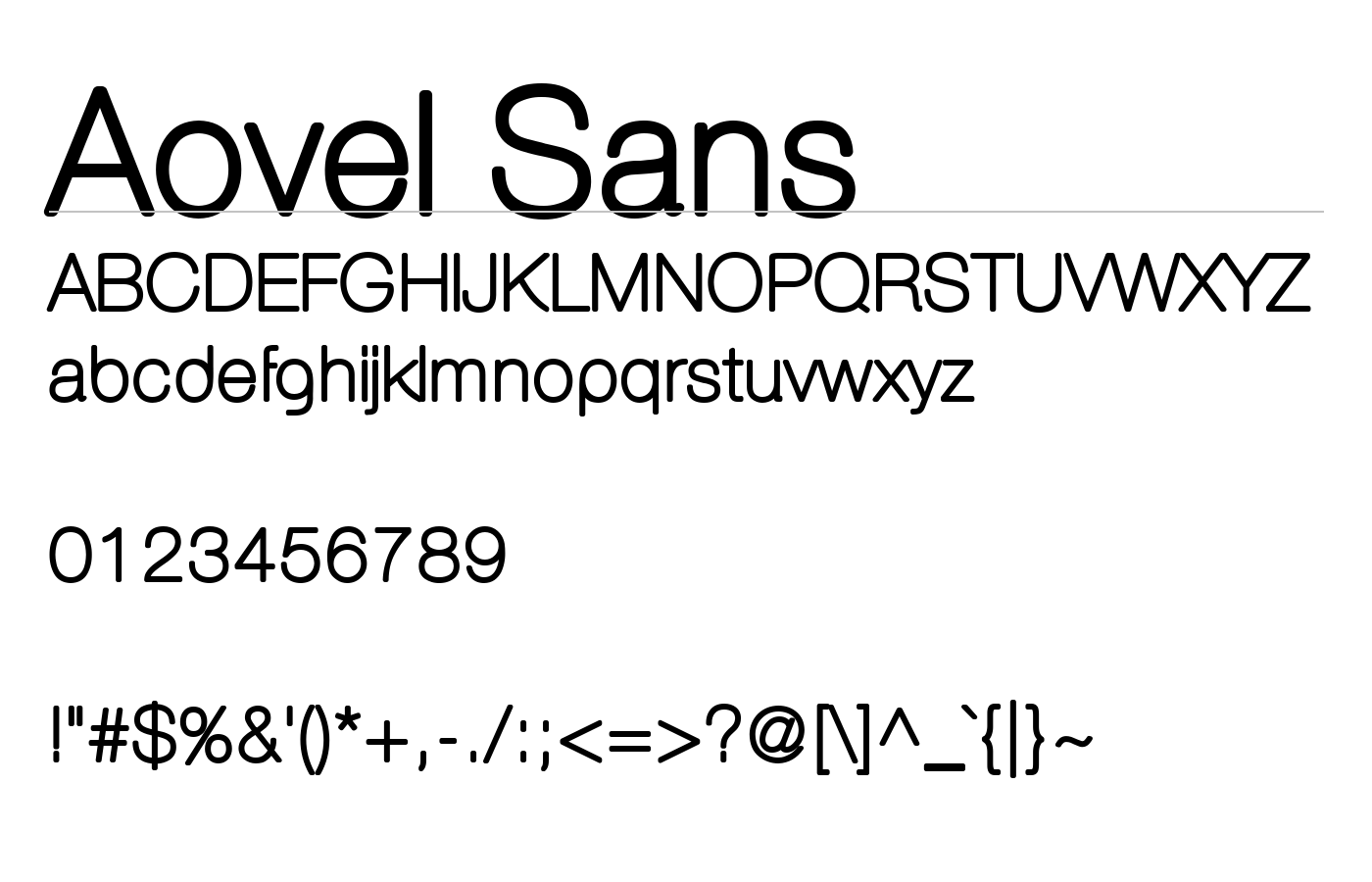
Aovel Sans is a clean and modern sans-serif font featuring a regular weight with consistent stroke widths and a medium x-height, making it highly readable. Its simple geometric shapes and open letterforms convey a friendly and approachable yet professional tone, ideal for both digital and print use. This versatile font works well in branding, editorial layouts, and user interfaces where clarity and contemporary style are key.
Aovel Sans Font
About Aovel Sans Font
| Font family | Aovel Sans Font |
| Release date | 2011-11-03 |
| Designer | Álvaro Thomáz |